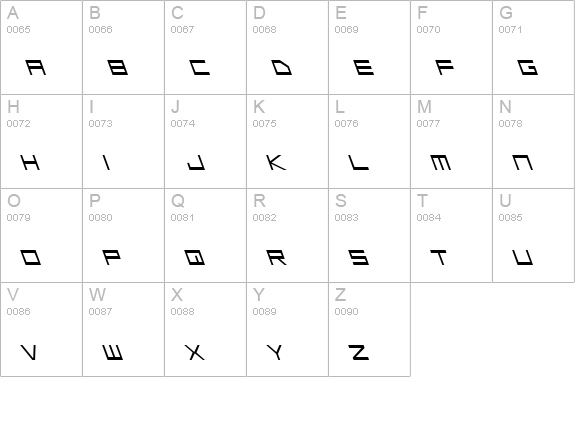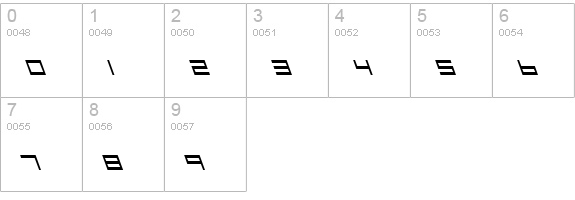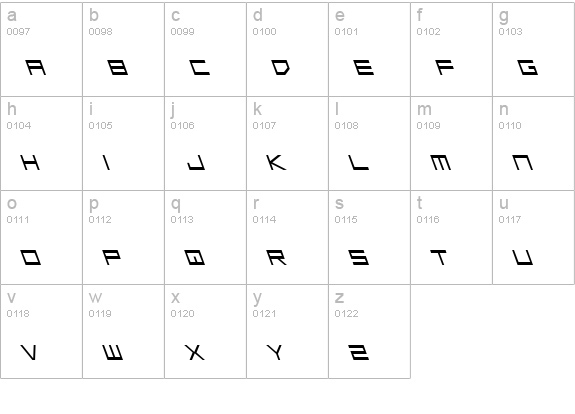
Introducing Low Gun Screen Leftalic font - a bold and modern typeface that brings a unique touch to your designs. This font is perfect for projects that require a strong and edgy look, making it ideal for headlines, logos, posters, and more. The sleek slanted style of the letters adds a dynamic flair to any text, making it stand out with its distinctive aesthetic. And the best part? Low Gun Screen Leftalic font is available for free download at FontsMarket.com! This means you can easily access this stylish font and use it in your creative projects without any cost. Don't miss out on this opportunity to enhance your designs with the striking appeal of Low Gun Screen Leftalic font. Download it now and start creating eye-catching visuals that leave a lasting impression.